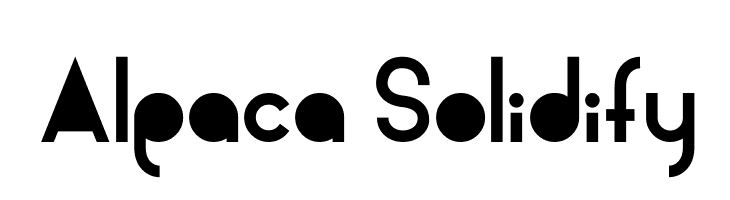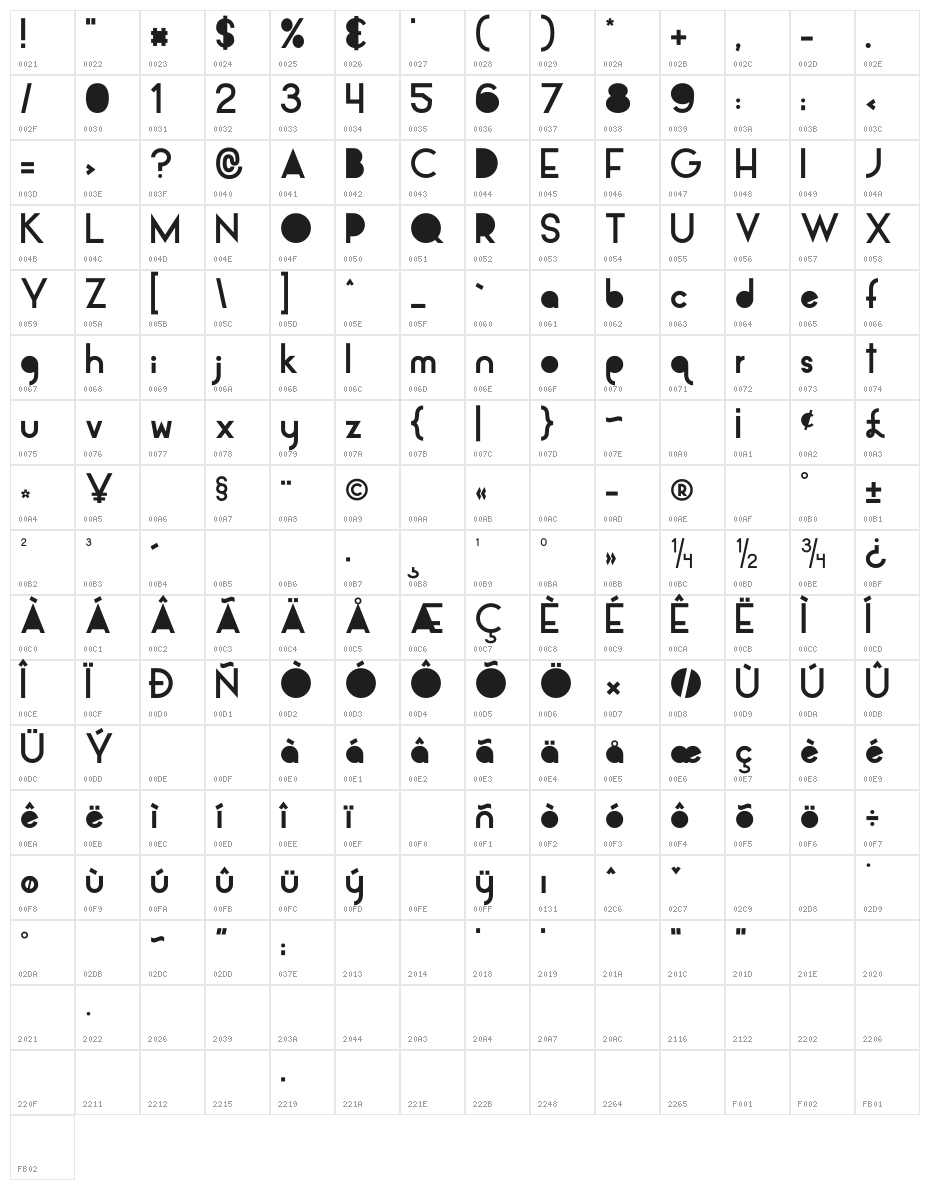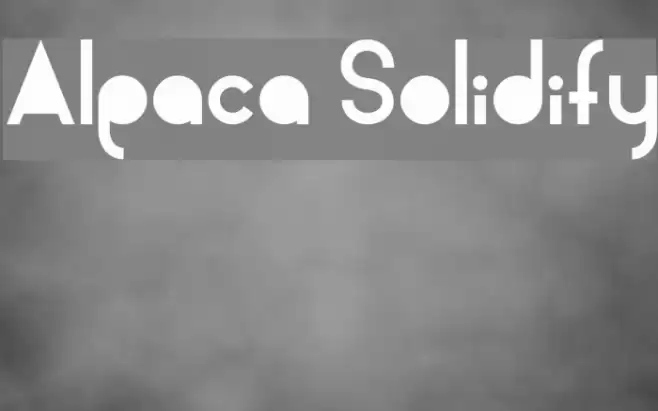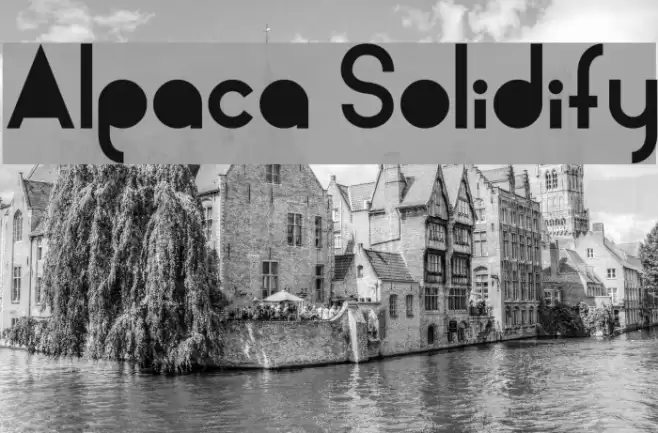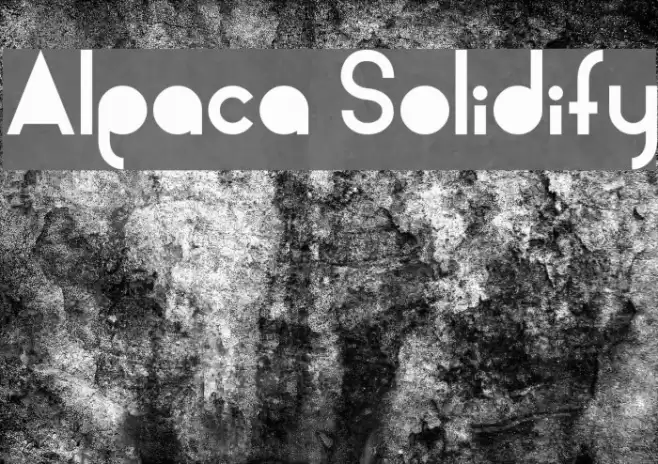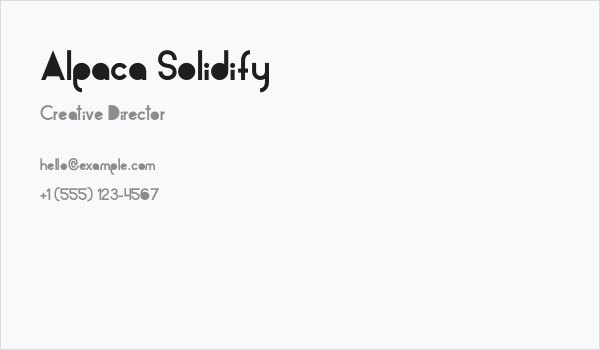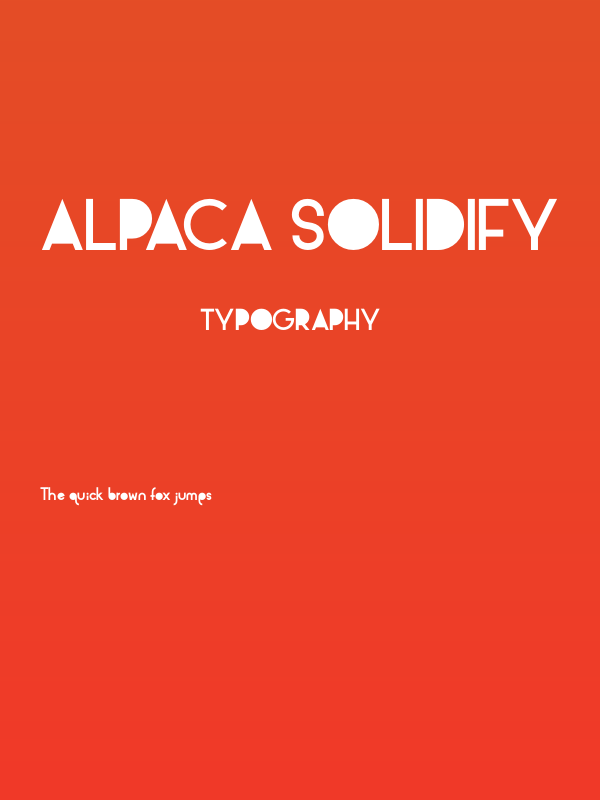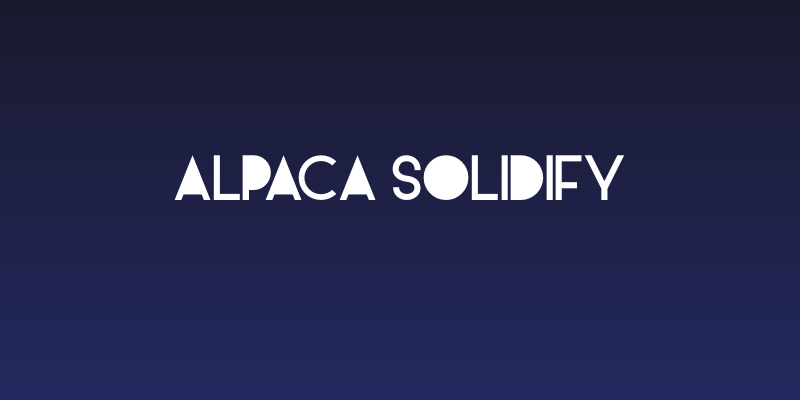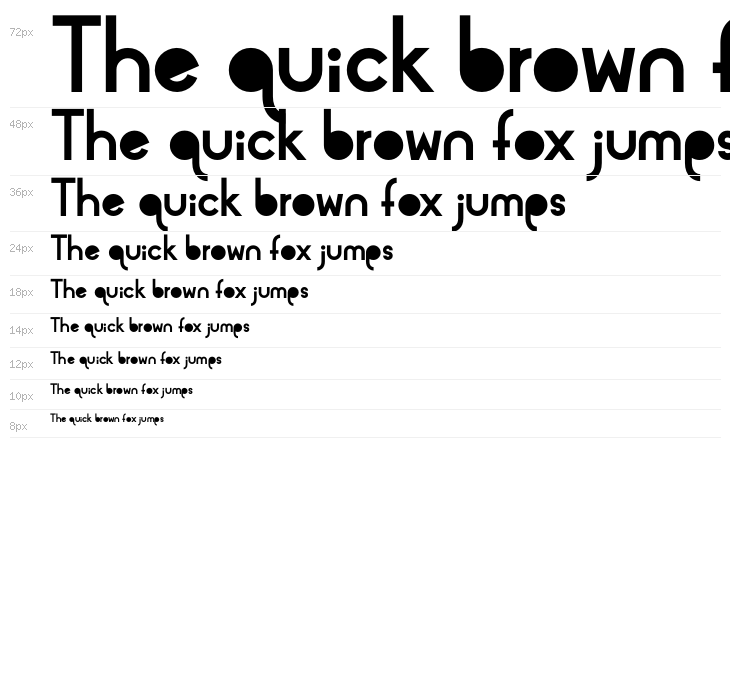
Alpaca Solidify Font
Alpaca Solidify Description
This font features a bold, geometric style with a modern and clean appearance. The uppercase letters are characterized by their solid, block-like forms, while the lowercase letters maintain a consistent roundness and simplicity. The numerals and special characters follow the same geometric principles, ensuring uniformity across all glyphs. The font's design is striking, with a focus on clarity and readability, making it suitable for various applications that require a strong visual impact.
Proposed ProjectsIdeal for branding, posters, headlines, and any design project that requires a bold and modern aesthetic.